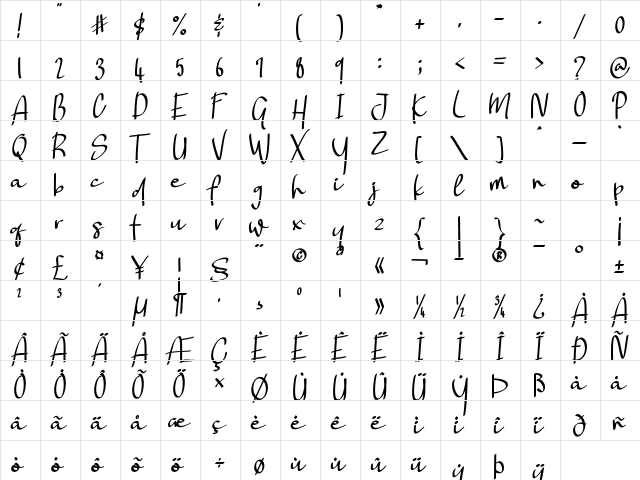
Landing Surely Regular
| Designer | Aldedesign 2019 |
Design Context for Landing Surely Typeface
Landing Surely is a composed and adaptable typeface that performs quietly and consistently across a wide range of design contexts.